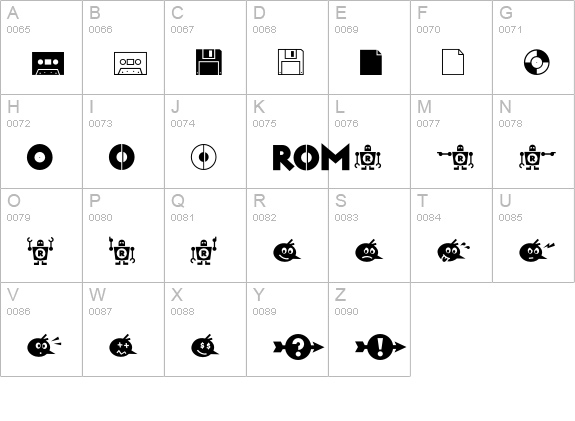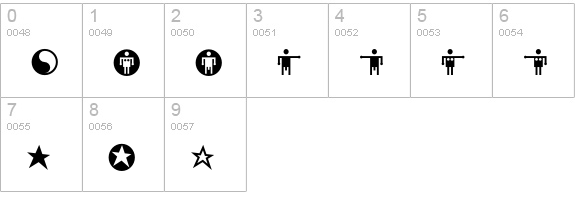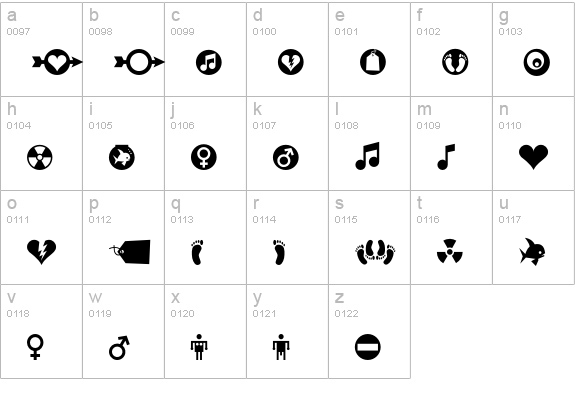
RiansDingbats-One Font Details
RiansDingbats-One font is a versatile and unique typeface that is sure to catch the eye of any designer or creative enthusiast. This font is perfect for adding a touch of playfulness and excitement to any project, whether it be a logo, website, or invitation. With its extensive collection of decorative symbols and icons, RiansDingbats-One font offers endless possibilities for creating captivating designs. From arrows and shapes to animals and food, this font has a wide range of options to choose from. One of the best things about RiansDingbats-One font is that it is completely free! Yes, you read that right. This font is freely available to download at FontsMarket.com, a trusted source for high-quality fonts. Now you can elevate your designs without breaking the bank. Whether you're a professional designer looking to add some visual interest to your next project, or simply a hobbyist who wants to have fun with typography, RiansDingbats-One font is the perfect choice. Download it today and let your creativity soar!